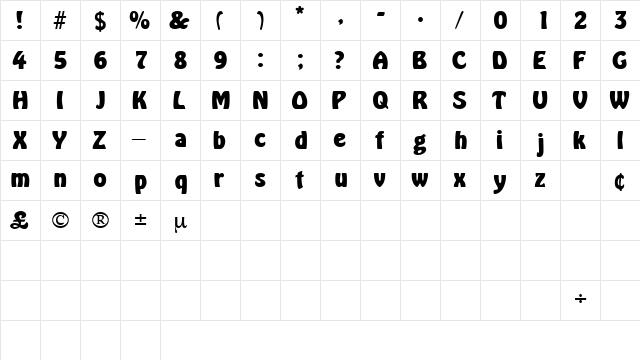
LoblollyDisplaySSK Regular
Design Context for LoblollyDisplaySSK Typeface
LoblollyDisplaySSK brings ornamental detail and strong personality to headlines and identities, where visual impact matters more than quiet functionality.
Font Pairing: Pair with a clean neutral sans-serif for body copy to let LoblollyDisplaySSK's character lead without overwhelming the composition.
Pro Tip: Treat LoblollyDisplaySSK as the centrepiece of your typographic hierarchy. One strong heading set in a decorative face can carry an entire layout.